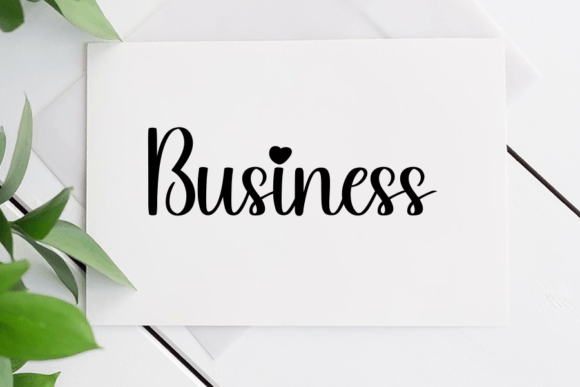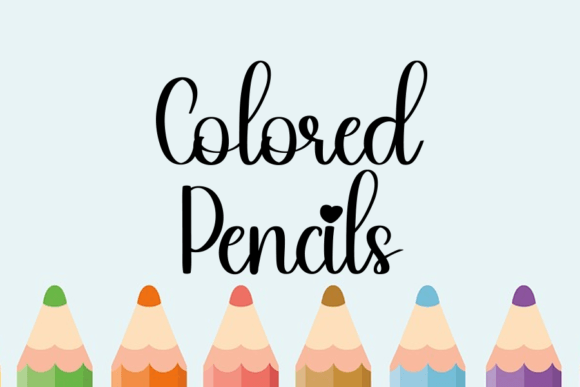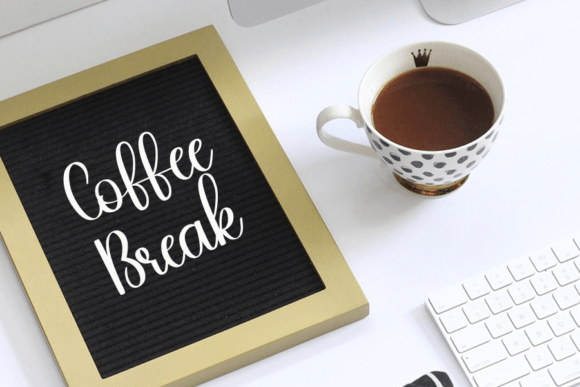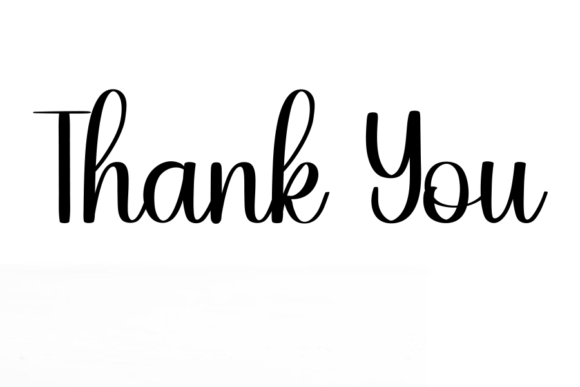
When Words Become Art: Discovering the Beauty in Handwritten Fonts
You’ve just landed on the perfect shot, the lighting is perfect, and the model is a vision of loveliness. But then, it’s time to add the finishing touches – the words that will bring your vision to life. And that’s where the magic happens. You search through your font collection, and one particular font catches your eye. It’s the Beautiful Font, a simple yet elegant handwritten font that screams ‘natural’ and ‘fresh’.
Beautiful Font is more than just a font – it’s a way to add a personal touch to your projects. Whether you’re designing a greeting card, a wedding invitation, or a bold headline, this versatile font is guaranteed to make your work stand out. As a designer, you know how important it is to choose the right font to convey your message, and Beautiful Font is a valuable addition to any designer’s toolkit.
Key Features of Beautiful Font
- Unique Characteristics: The font features a unique blend of elegance and sophistication, making it ideal for luxury brands, high-end fashion, and premium products.
- Kerning and Ligatures: The font includes advanced kerning and ligature pairs for improved readability and a more polished appearance.
Designer Review: Beautiful Font
Overall, I was quite impressed with Beautiful Font. It has a unique charm that can add a touch of elegance to any design project. ✨ Here are some of its strengths:
- Beautiful Font has a wide range of weights and styles, making it suitable for various design needs.
- The font’s legibility is excellent, even at smaller sizes, making it perfect for body text.
- The font’s decorative elements are tastefully done, adding a touch of sophistication without overpowering the content.
However, I do have some concerns about its limitations:
- ⚠️ The font’s limited support for certain languages and character sets can be a problem for international projects.
- ⚠️ The font’s complexity can make it difficult to use for beginners, as it requires some finesse to set up and customize.
Despite these limitations, I would still recommend Beautiful Font for designers who are looking for a unique and sophisticated font. With some practice and patience, the font can be a valuable addition to any design arsenal. Overall, I give it 4 out of 5 stars.
Beautiful Font is ideal for creating eye-catching headings, titles, and captions. Use it to add a touch of elegance to your designs, whether it’s a social media graphic, a brochure, or a presentation.
Playfair Display is a luxurious and elegant font perfect for high-end designs, such as fashion magazines, luxury brands, and special occasions. It’s ideal for creating a sense of sophistication and refinement. Compared to Beautiful Font, Playfair Display is more ornate and has a more classical feel.
Great Vibes is a modern and elegant font suitable for various design projects, including invitations, posters, and editorial content. It’s perfect for creating a sense of elegance and sophistication without being too formal. Compared to Beautiful Font, Great Vibes is more versatile and can be used in a wider range of designs.